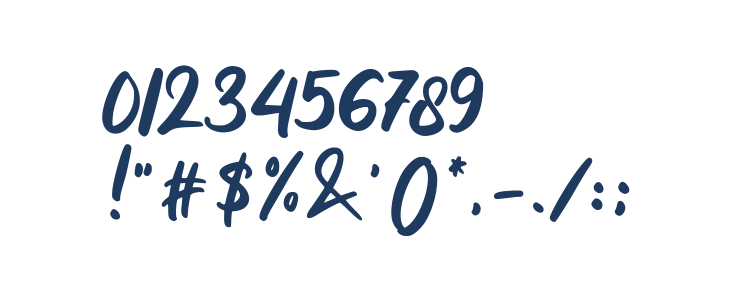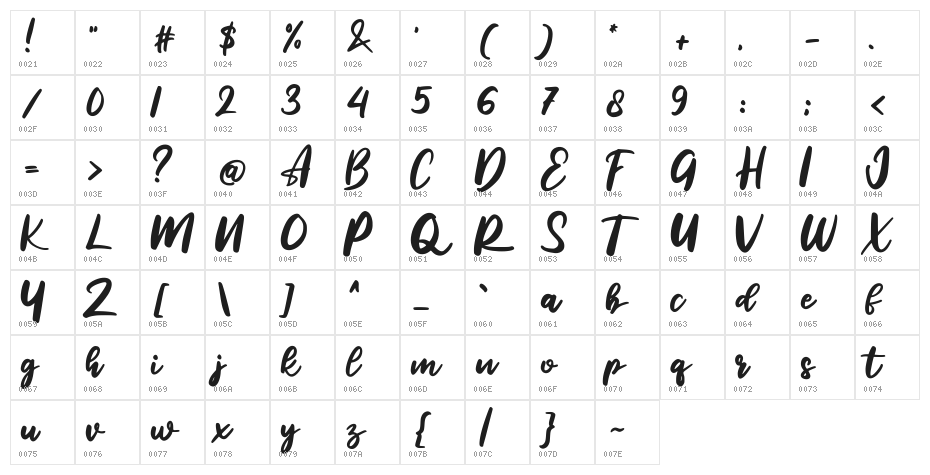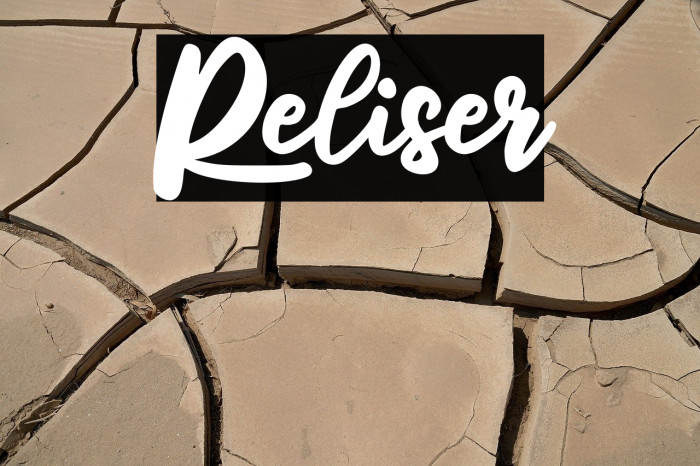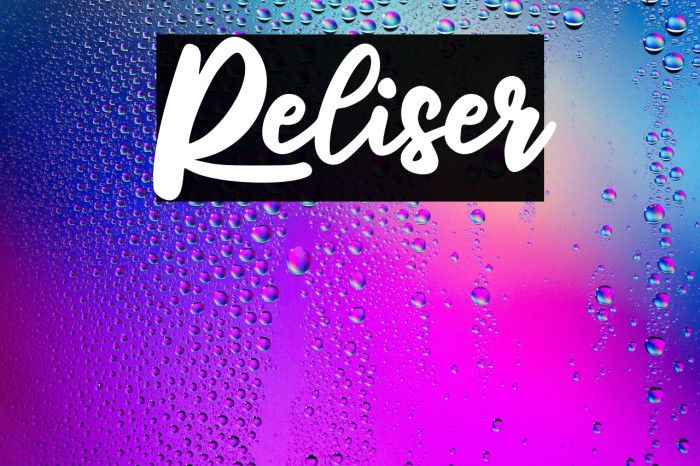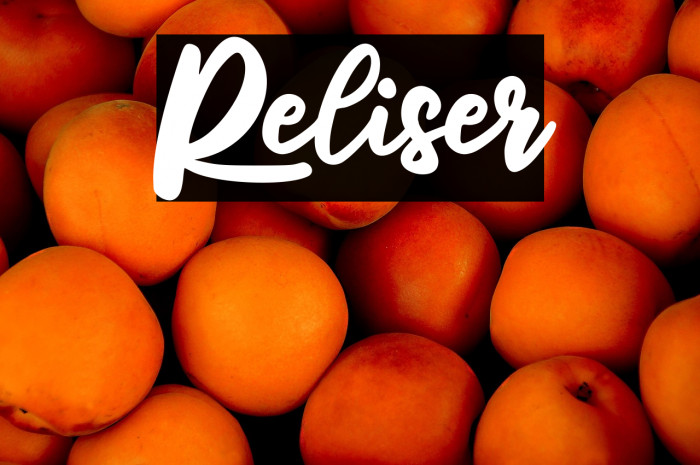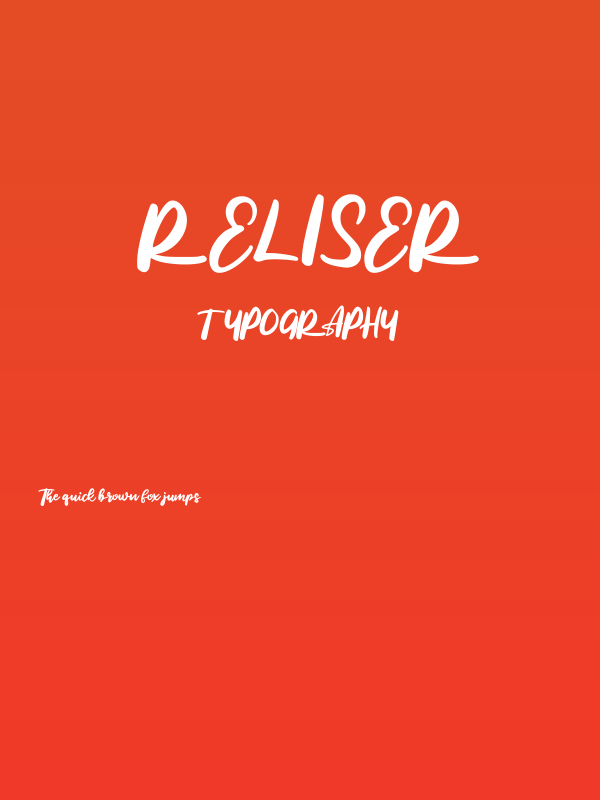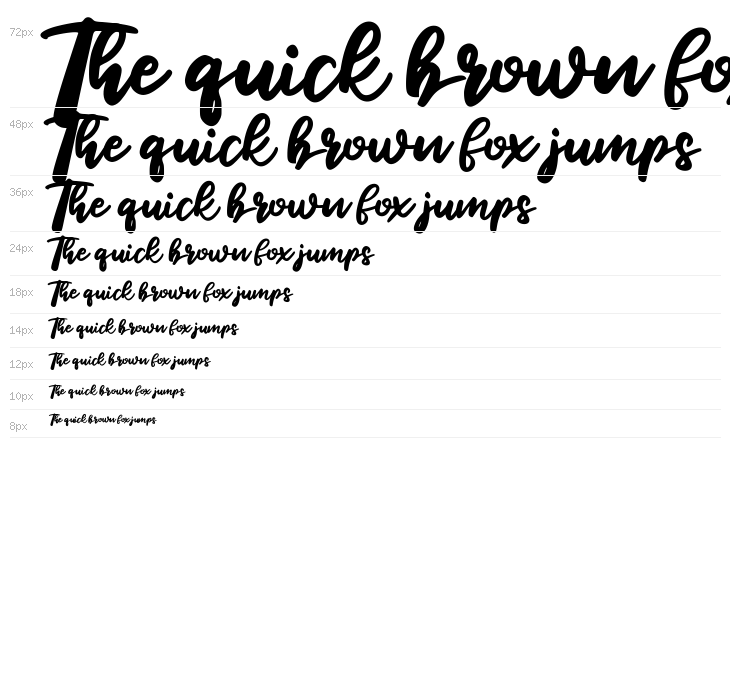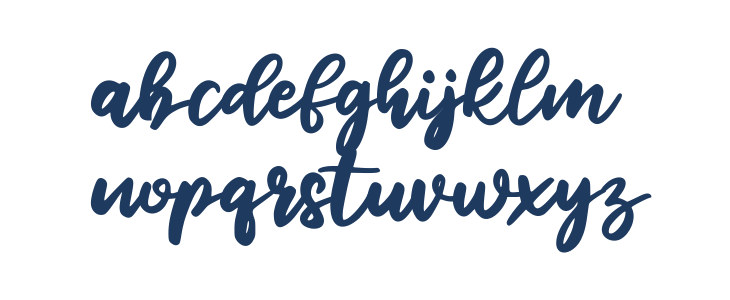
Reliser Font
Reliser Description
This font features a bold and expressive script style, characterized by its fluid and dynamic strokes. The letters are interconnected, creating a sense of movement and elegance. The uppercase letters are slightly larger and more pronounced, while the lowercase letters maintain a consistent flow. The numerals are distinct and easy to read, complementing the overall style. Special characters are creatively integrated, adding to the font's versatility. This font exudes a modern and artistic vibe, making it suitable for a variety of creative projects.
| Use Case | Logos, Headlines, Artistic designs |
| Proposed Projects | Ideal for branding, invitations, greeting cards, and artistic posters. |